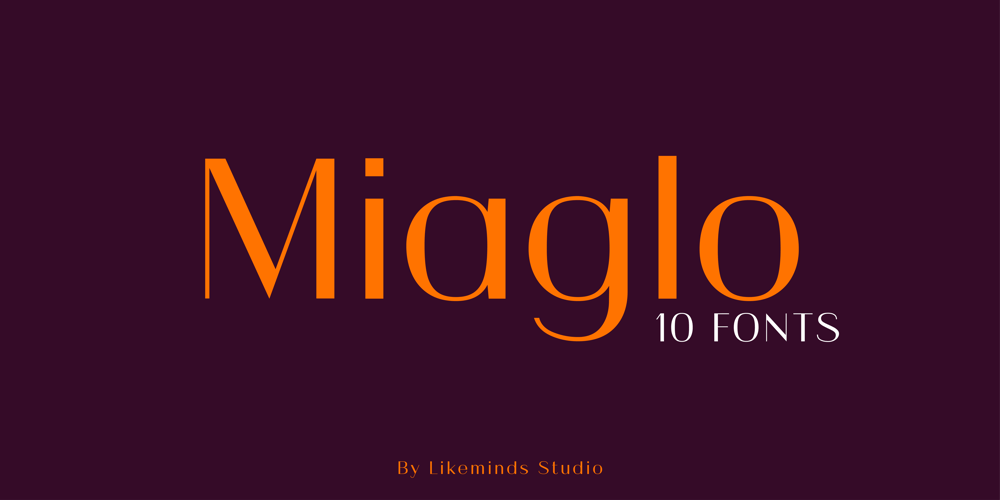
Miaglo
Miaglo font
Miaglo Font Family was designed by Abhya Chawla and published by Likeminds Studio. Miaglo contains 10 styles and family package options. MIAGLO, is the self-derived contextual term for ‘My Inner Glow”. Representing the light within, caressed with warmth, deep confidence and communicating an expression with absolute clarity. It has the richness and elegance to express the bold me with full heart and soul.